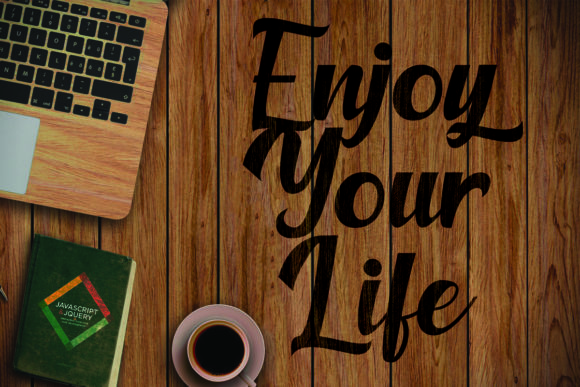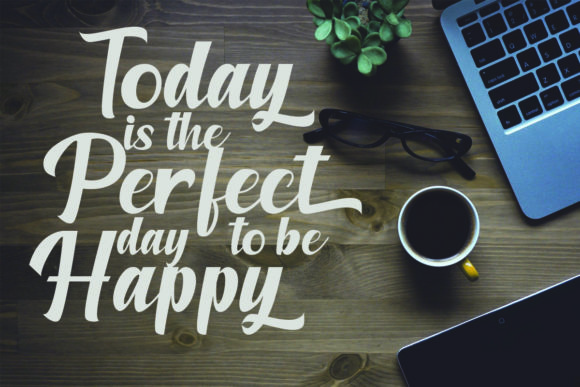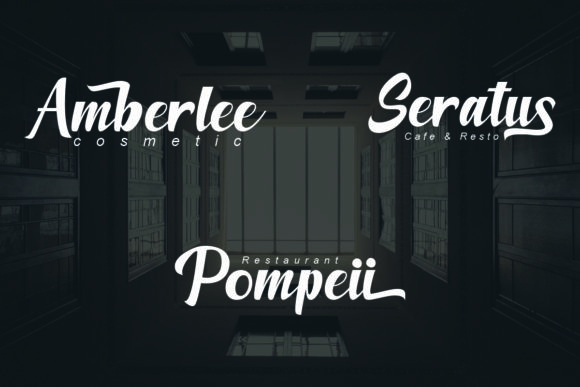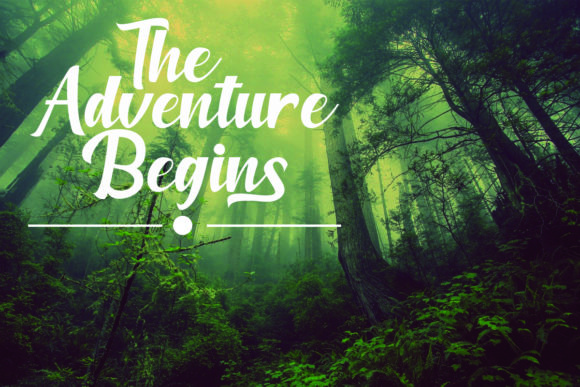
Discover the Elegance of Amberllee Font: Elevate Your Designs with a Touch of Sophistication
Are you a designer or crafter looking for a font that embodies elegance and sophistication? Look no further than Amberllee Font. This beautiful and elegant handwritten font is designed to add a touch of refinement to your creative projects. With its sweet and well-balanced characters, Amberllee Font is the perfect choice for a wide range of designs.
The Characteristics of Amberllee Font
Amberllee Font is a handwritten font that exudes a sense of warmth and personality. Its characters are carefully crafted to be sweet and well-balanced, making it easy to read and visually appealing. The font’s elegant strokes and curves give it a sophisticated feel that’s perfect for designs that require a touch of luxury.
One of the standout features of Amberllee Font is its versatility. It can be used for a wide range of designs, from wedding invitations and party decorations to branding and advertising materials. Whether you’re creating a romantic and whimsical design or a more formal and professional one, Amberllee Font is sure to make it shine.
Why Designers and Crafters Love Amberllee Font
So, what makes Amberllee Font a favorite among designers and crafters? Here are just a few reasons:
- Elegant and sophisticated: Amberllee Font adds a touch of refinement to any design, making it perfect for projects that require a level of sophistication.
- Versatile: The font’s versatility makes it suitable for a wide range of designs, from formal to informal.
- Easy to read: Amberllee Font’s sweet and well-balanced characters make it easy to read, even at small sizes.
- Unique and eye-catching: The font’s elegant strokes and curves give it a unique and eye-catching quality that sets it apart from more traditional fonts.
How to Use Amberllee Font in Your Designs
Using Amberllee Font in your designs is easy. Here are a few tips to get you started:
- Pair it with complementary fonts: Amberllee Font pairs well with a range of fonts, from serif to sans-serif. Experiment with different combinations to find the one that works best for your design.
- Use it for headings and titles: Amberllee Font is perfect for headings and titles, where its elegant and sophisticated feel can really shine.
- Add it to your branding materials: Use Amberllee Font to add a touch of elegance to your branding materials, such as business cards, letterheads, and brochures.
- Experiment with different colors and textures: Amberllee Font looks great in a range of colors and textures. Experiment with different combinations to find the one that works best for your design.
In conclusion, Amberllee Font is a beautiful and elegant handwritten font that’s perfect for designers and crafters looking to add a touch of sophistication to their creative projects. With its sweet and well-balanced characters, versatile design, and easy-to-read quality, Amberllee Font is sure to elevate your designs and make them stand out from the crowd.